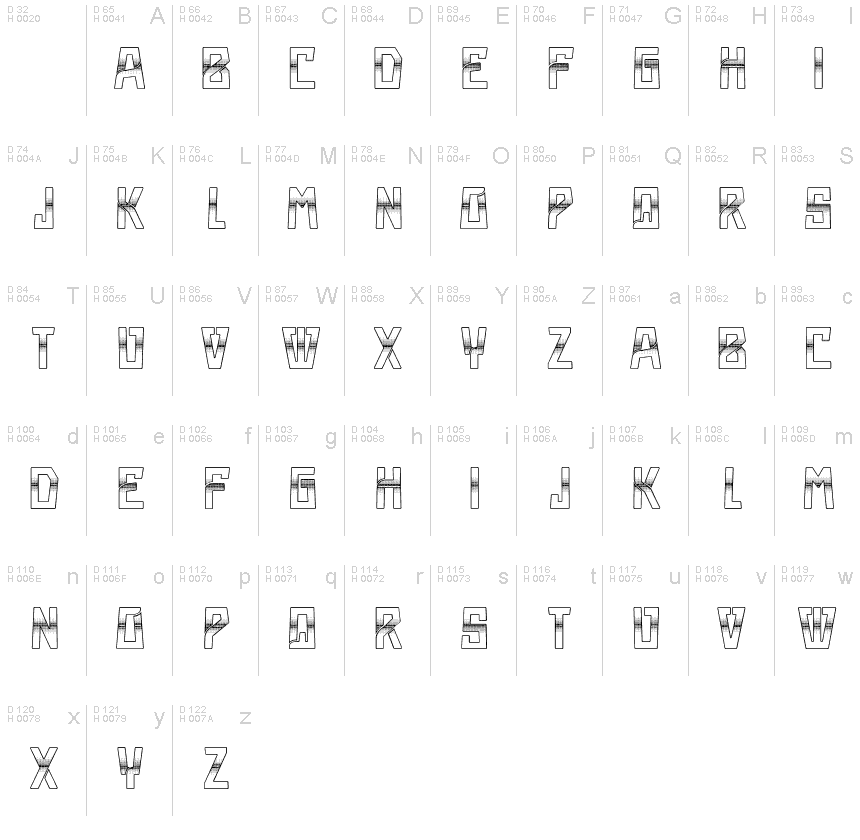
Hawk Regular
Hawk, the sleek and daring display font designed by Vladimir Nikolic, is perfect for projects that demand attention. With its condensed width, Hawk makes a bold statement in headlines and titles. The semi-bold typeface exudes confidence and strength, making it ideal for branding materials, sports team logos, and movie posters. But don't let its intensity fool you - Hawk also adds a touch of elegance to wedding invitations or high-end fashion magazines. Its clean lines and modern flair make it versatile enough to suit any project that requires a touch of sophistication with a hint of edginess.